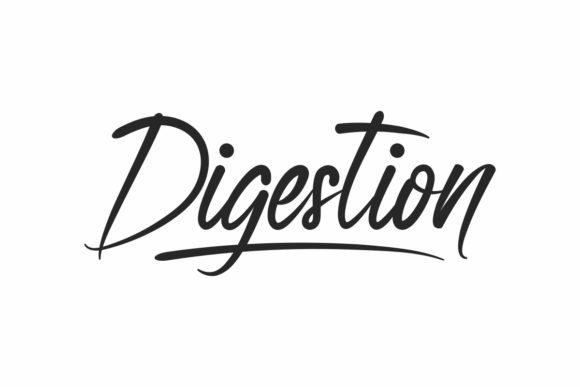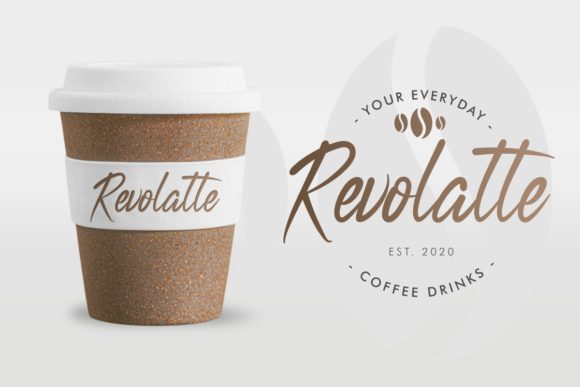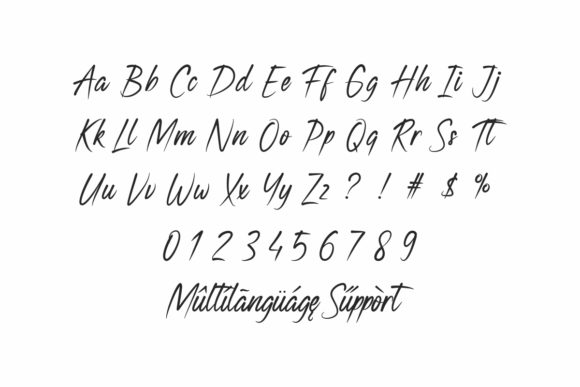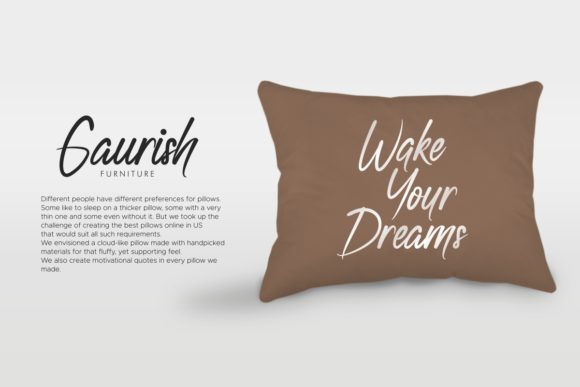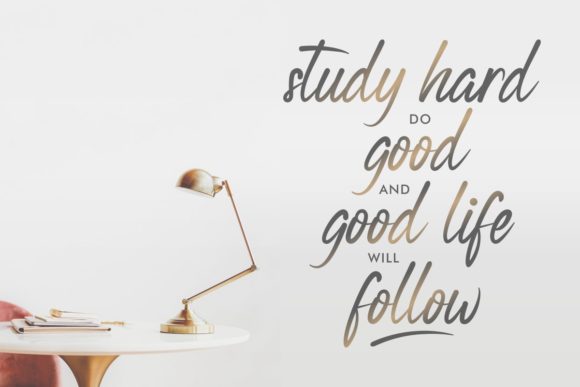
Digestion Font
About Digestion Font
Digestion is a brush hand lettering font. It has a delicate yet relaxed style and as a result, it will match a variety of designs, both formal and informal.